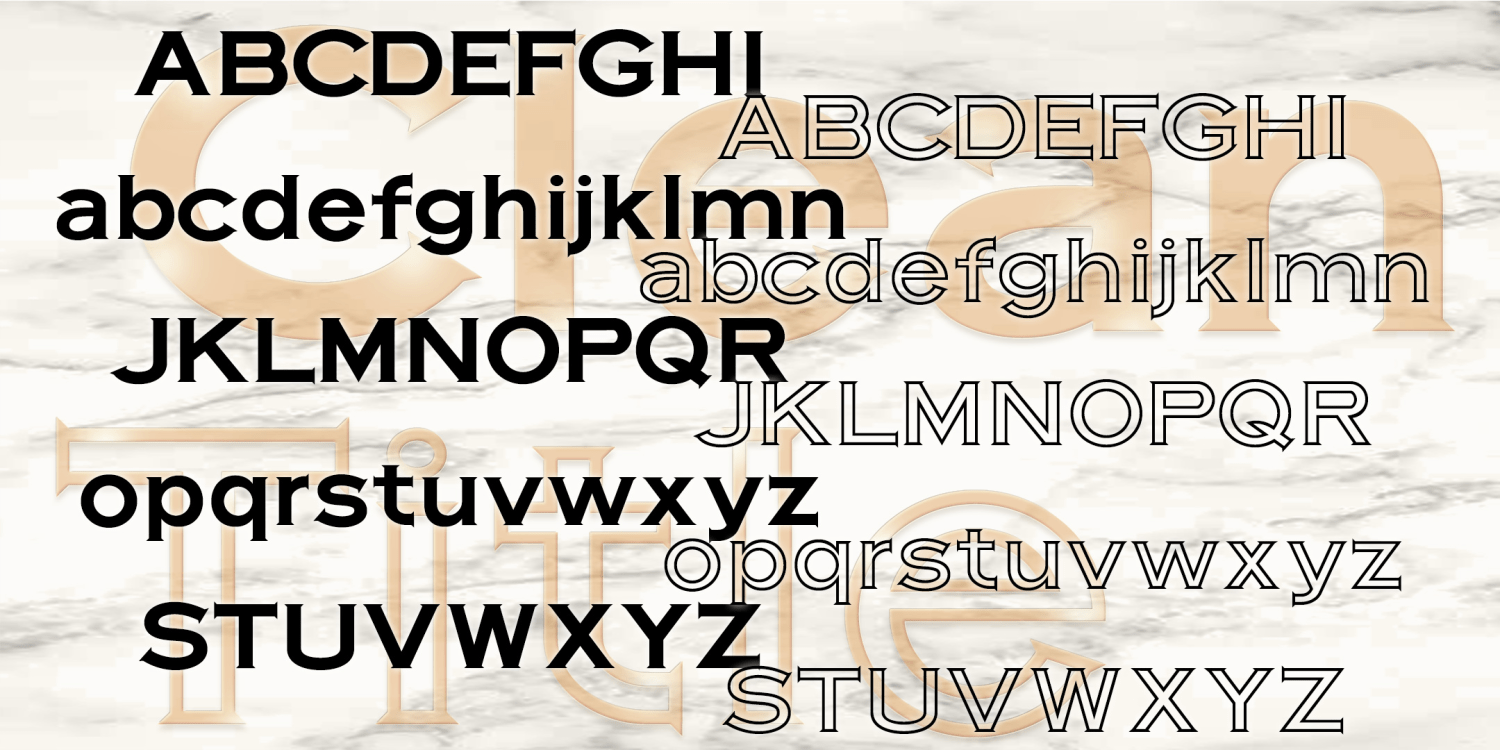
Clean Title
Font Family by Harold's Fonts
CLEAN TITLE is a bold and crisp titling font. It was inspired by the classic font Copperplate Gothic, originally designed by Frederic W. Goudy in 1901. I have completely redrawn the letterforms, now with tiny Latin serifs and a complete lowercase for greater flexibility. There's also a companion Outline font for more variety.